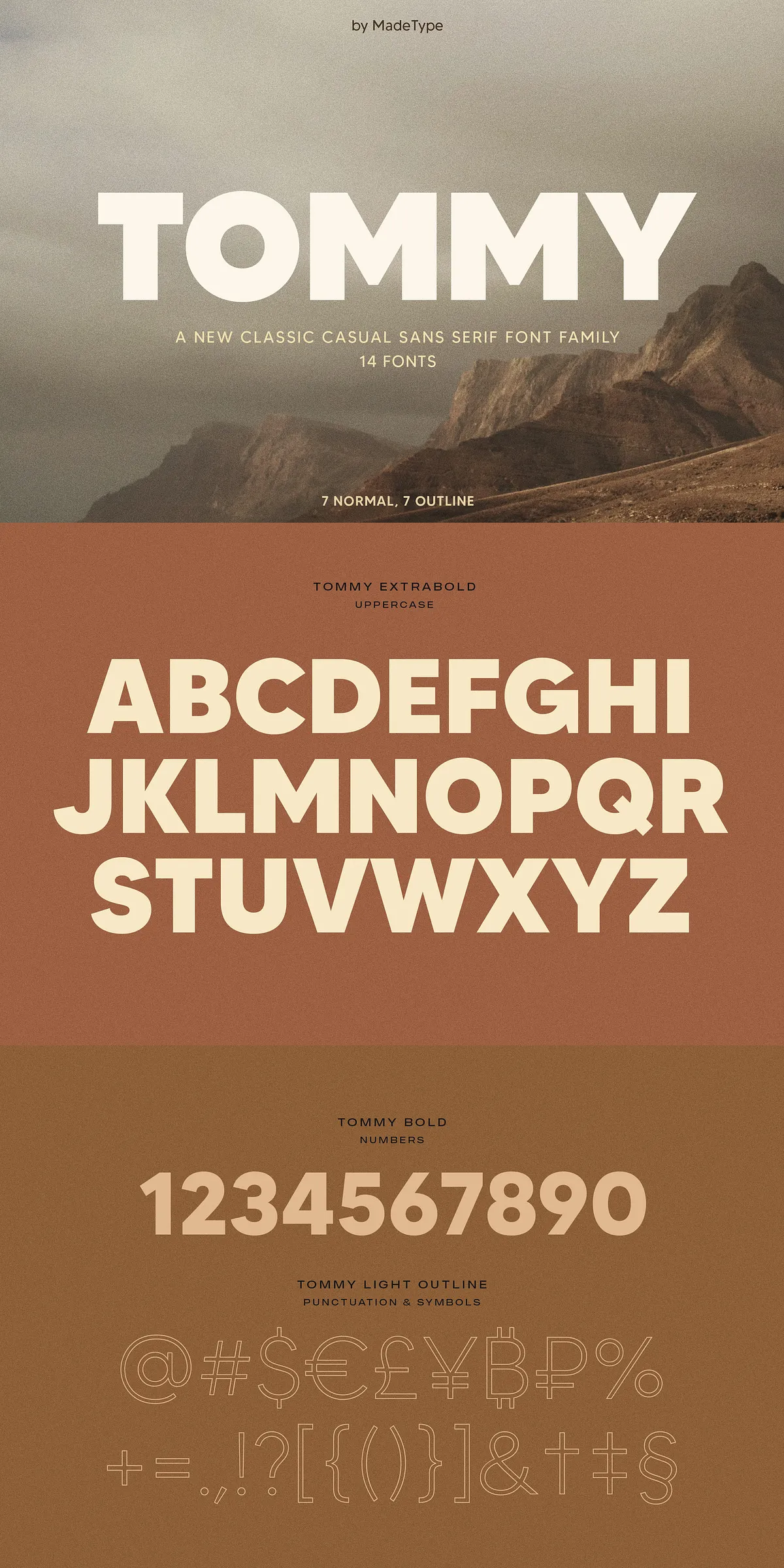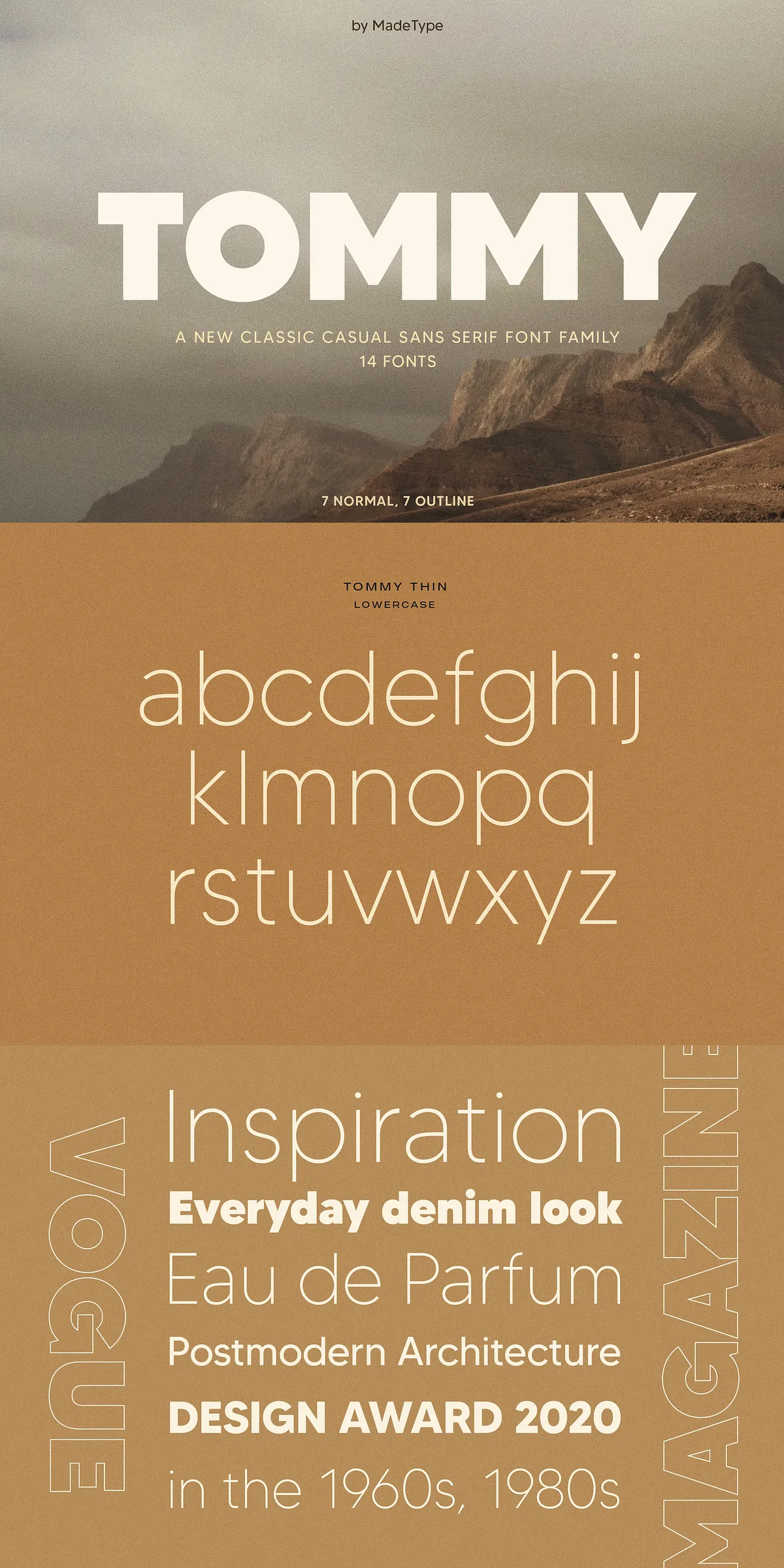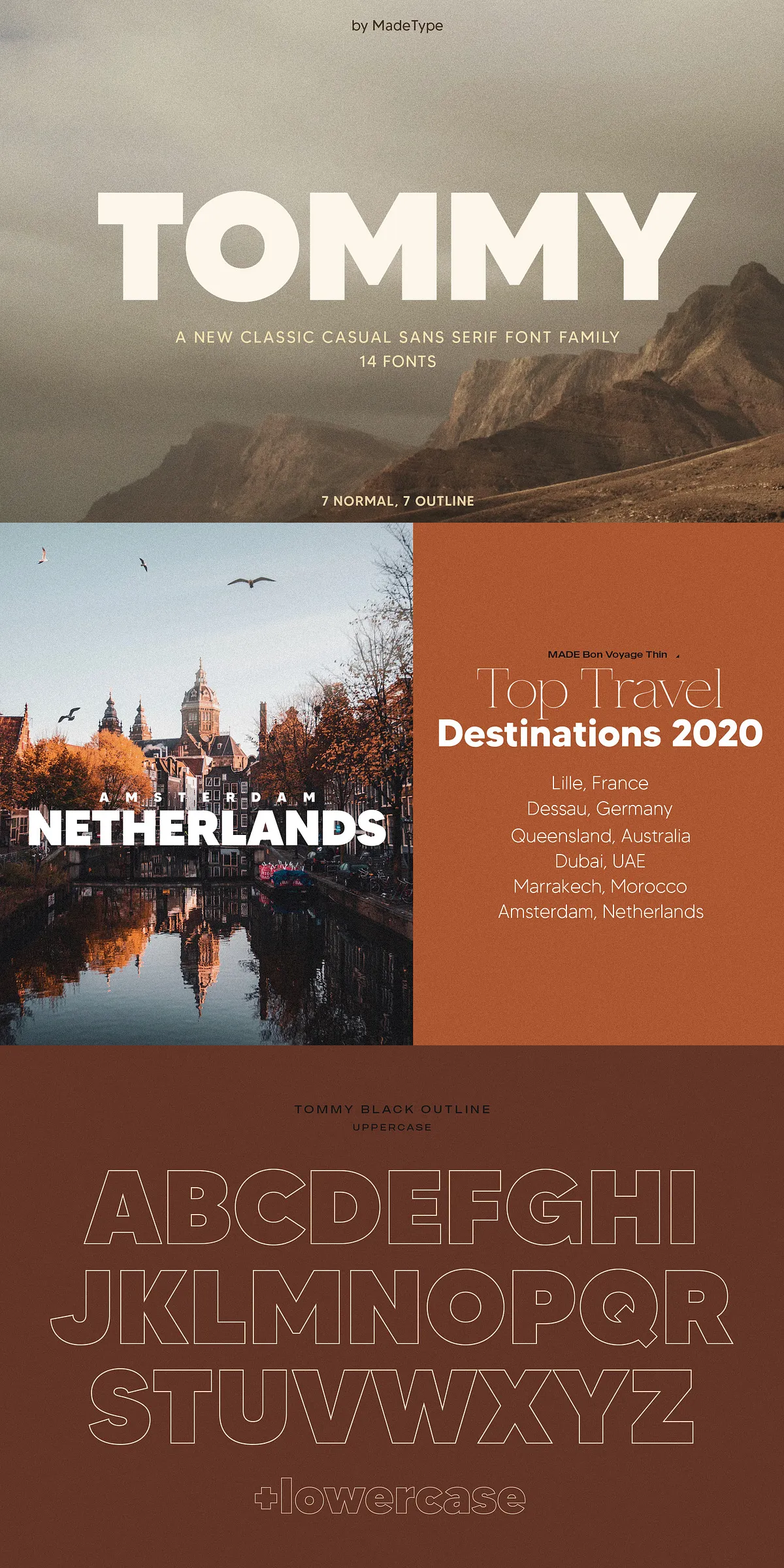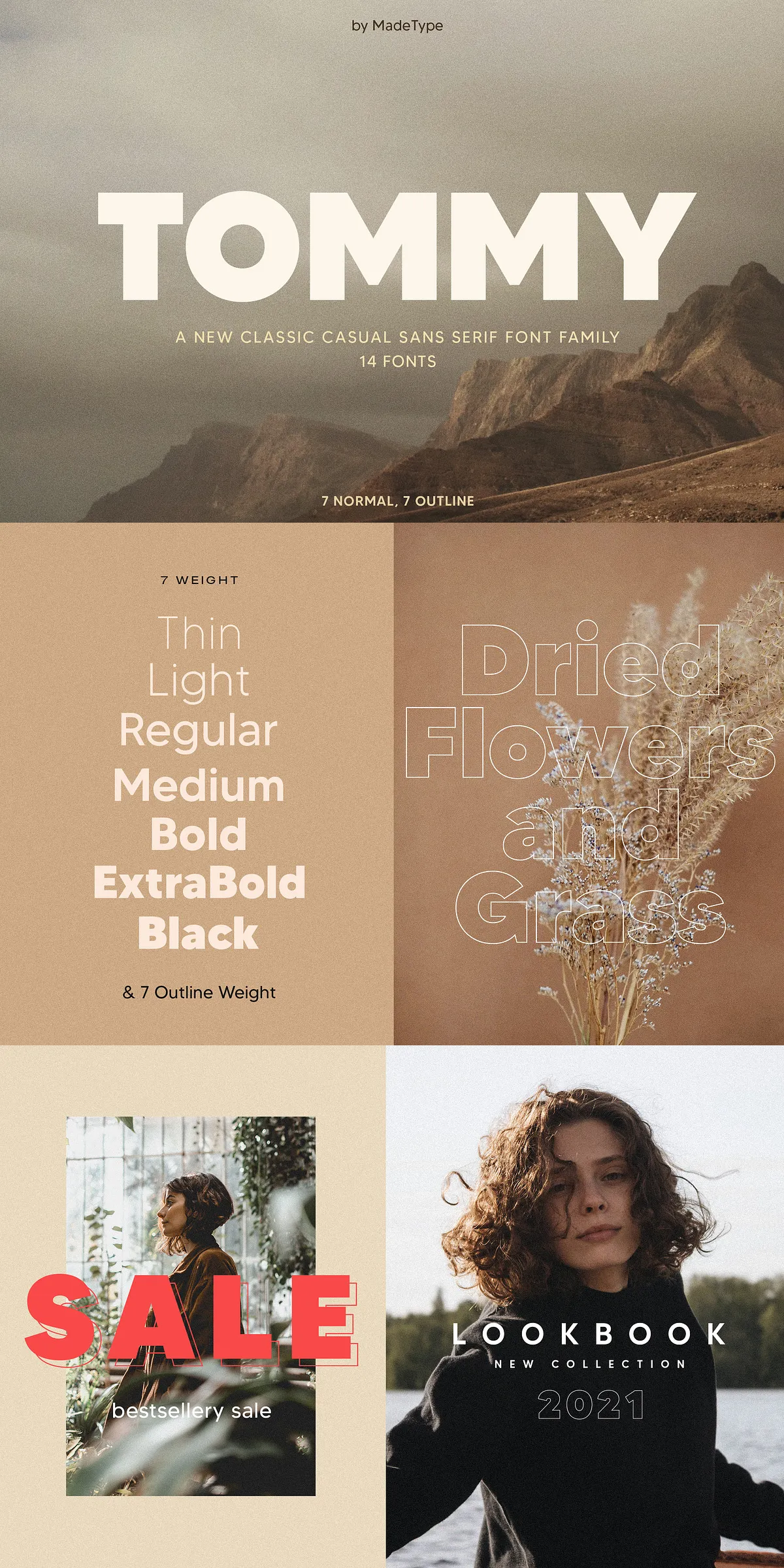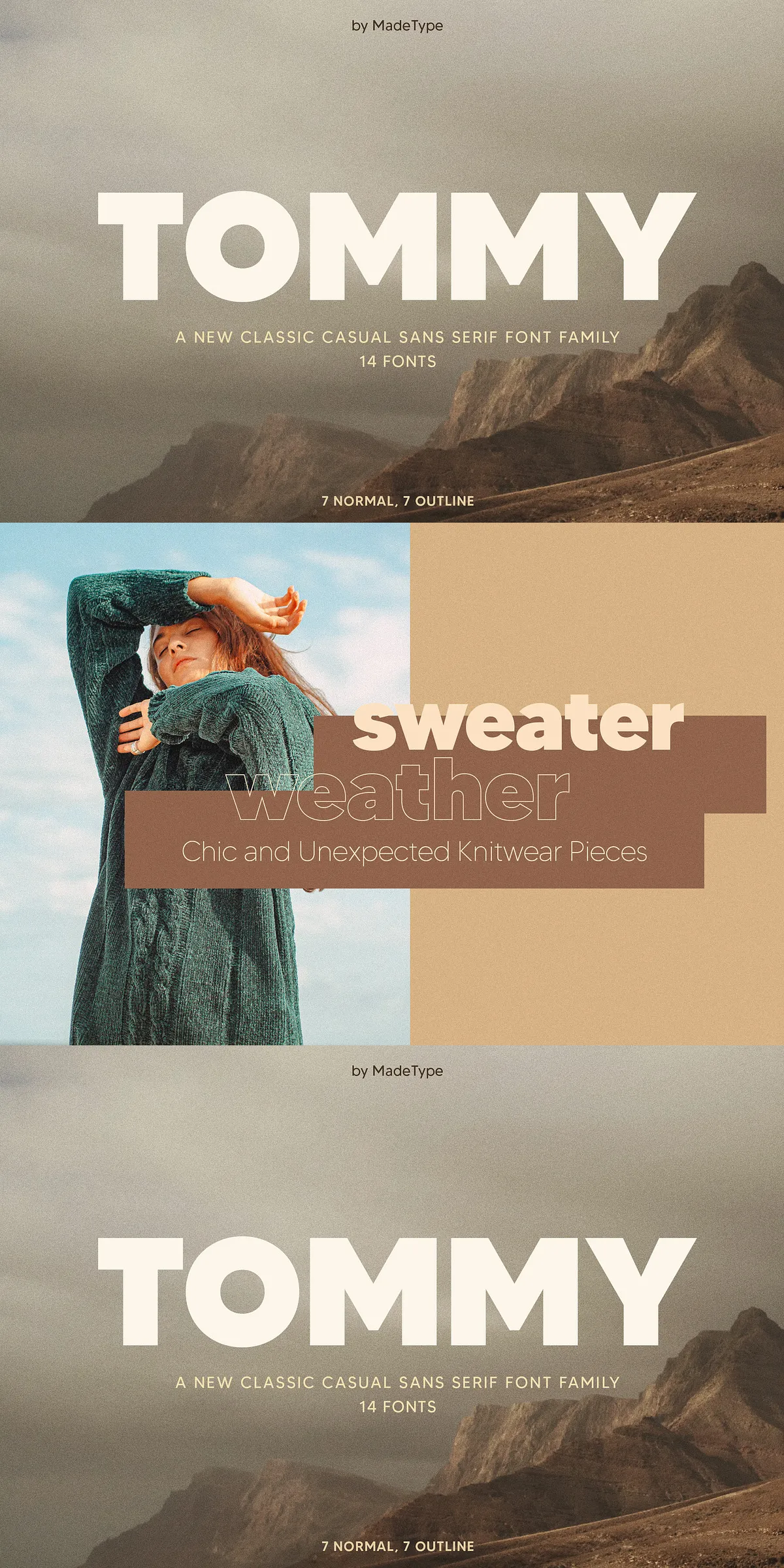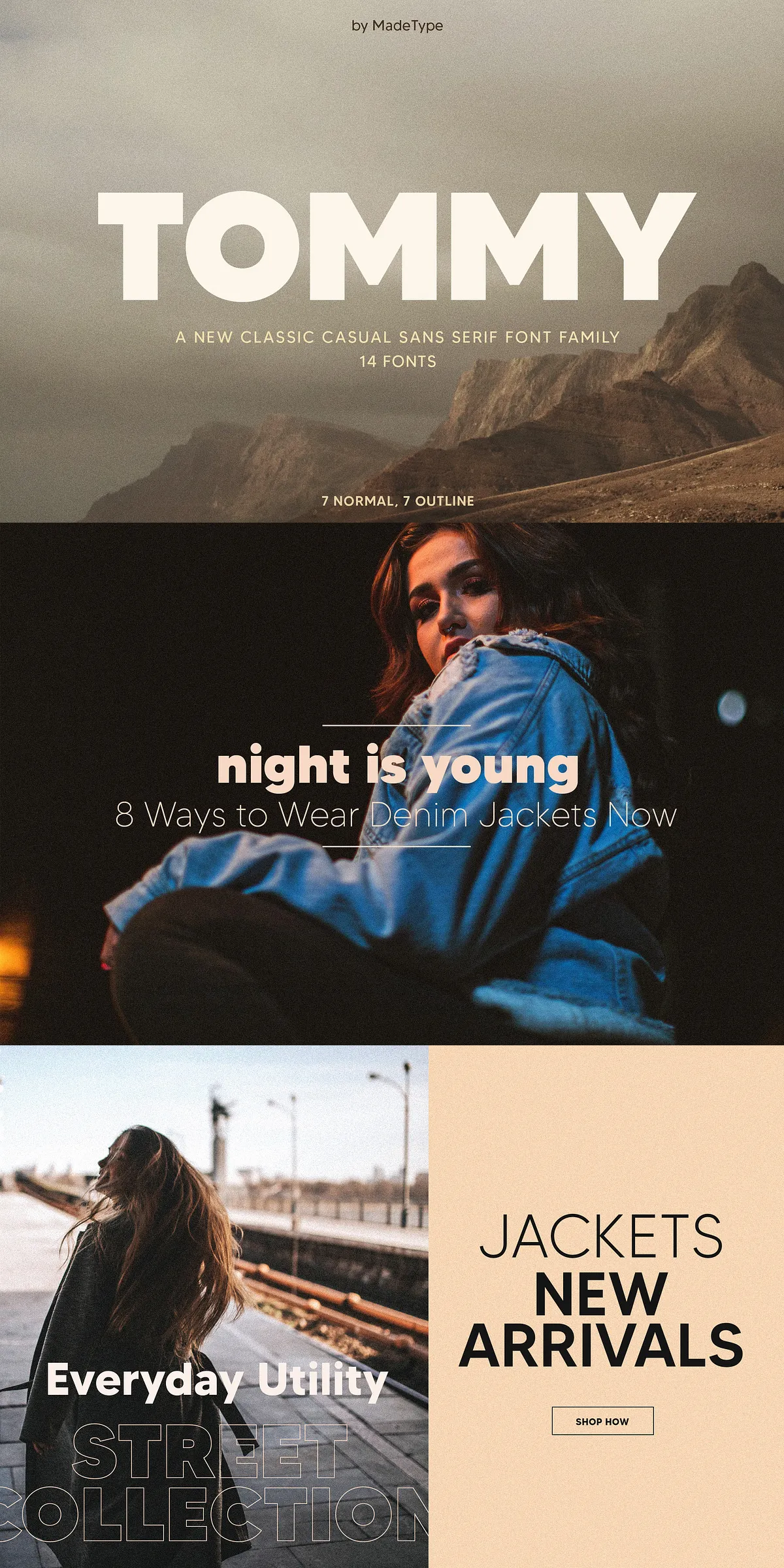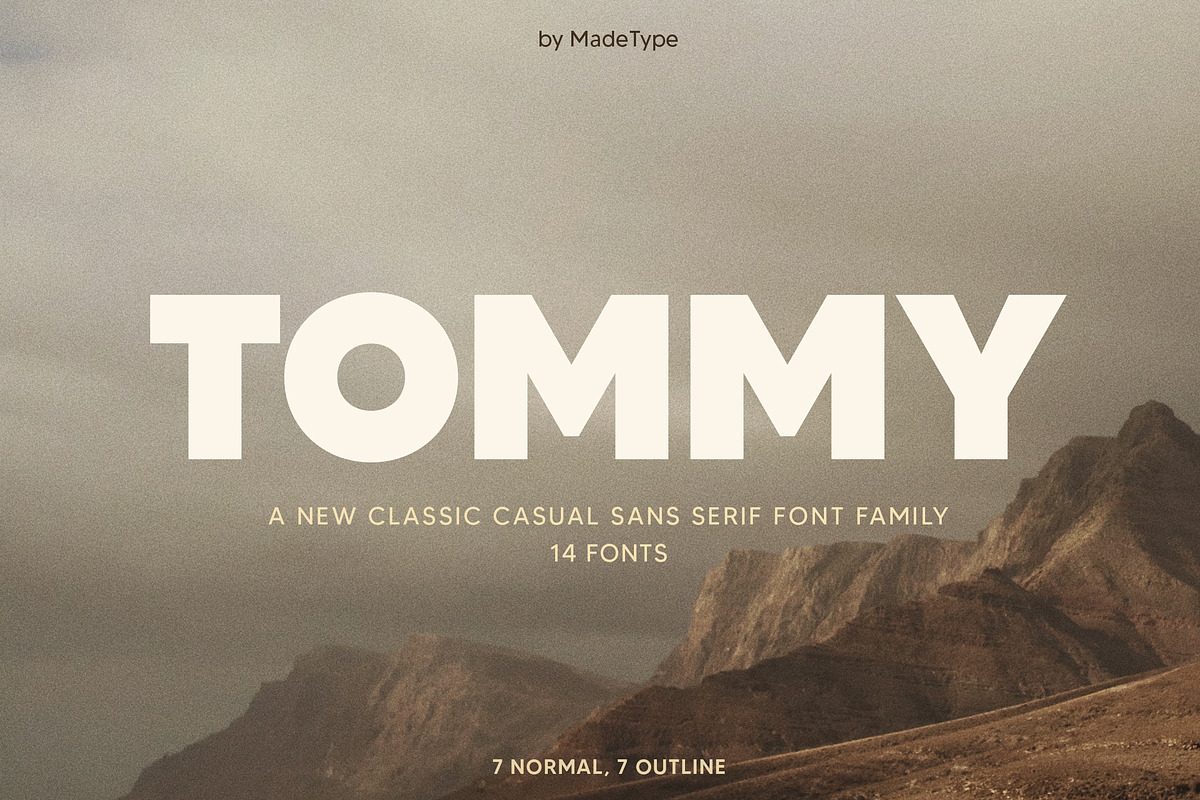
MADE TOMMY is a fresh take on classic casual sans serif typefaces, designed to bring sophistication and versatility to your typography projects. This font family is meticulously crafted with a total of 14 styles, including 7 normal weights and 7 matching outline styles, offering an extensive range of creative possibilities. MADE TOMMY is tailored to meet the demands of modern designers, enabling them to create clean, elegant, and impactful visuals for a wide array of applications.
Extensive Font Family for All Design Needs
The MADE TOMMY collection spans seven carefully graded weights, from Thin to Black, each available in both solid and outline variations. This comprehensive set allows designers to experiment with hierarchy, emphasis, and style within the same cohesive family, ensuring seamless design consistency. Whether you are working on bold headlines or subtle body text, MADE TOMMY provides the flexibility to adapt to any project’s visual requirements.
Normal and Outline Styles for Dynamic Expression
One of MADE TOMMY’s unique strengths lies in its dual offering of both normal and outline versions across all weights. The outline styles deliver a dynamic edge for creative designs, adding dimension and contrast that catch the eye without compromising readability. By combining these styles, designers can produce striking layouts that stand out, from modern editorial spreads to sophisticated branding campaigns.
Diverse Use Cases Across Various Creative Fields
MADE TOMMY excels in its adaptability, making it the perfect choice for an extensive range of design projects. Its clean and classic character is ideal for fashion magazines, logos, and branding, where a contemporary yet timeless look is essential. Additionally, the font’s versatility shines in photography portfolios, invitations (including wedding invitations), quotes, blog headers, posters, advertisements, postcards, books, and websites.
Quality and Coverage for Professional Typography
MADE TOMMY is engineered with attention to detail, balancing legibility with style precision. Its letterforms maintain clarity across sizes and mediums, ensuring that your text looks sharp on both digital and print platforms. Multilingual support extends the usability of this font family, covering a wide range of Latin-based languages and adding value for international projects.
Summary of MADE TOMMY Font Family Features
- Classic casual sans serif font family with 7 weights.
- Supporting uppercase, lowercase, numerals, punctuation, and multilingual characters.
- Ideal for fashion, magazines, logos, branding, photography, invitations, blogs, posters, advertisements, postcards, books, and websites.
By integrating MADE TOMMY into your design toolkit, you gain access to a modern, versatile font family that empowers you to craft stylish, professional, and attention-grabbing visual communications with ease. Its rich set of weights and outline options offers unmatched flexibility, making it suitable for both subtle and bold typographic expressions.